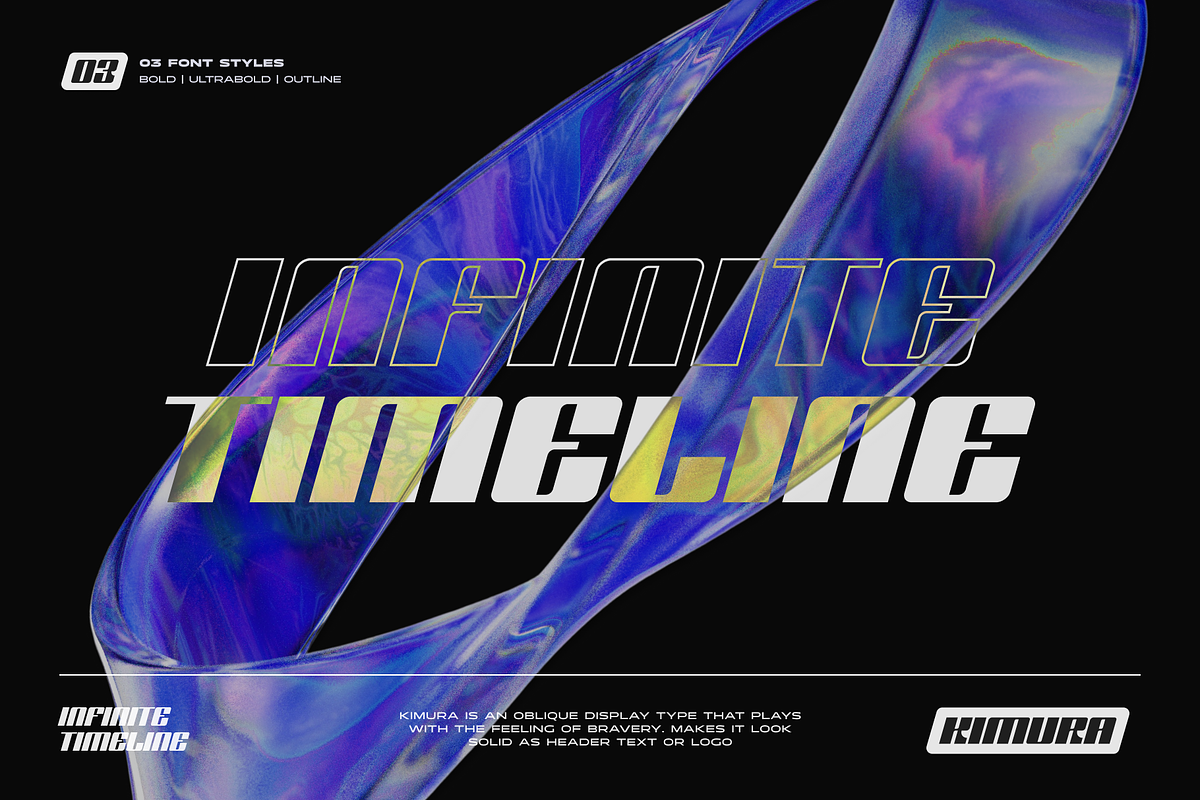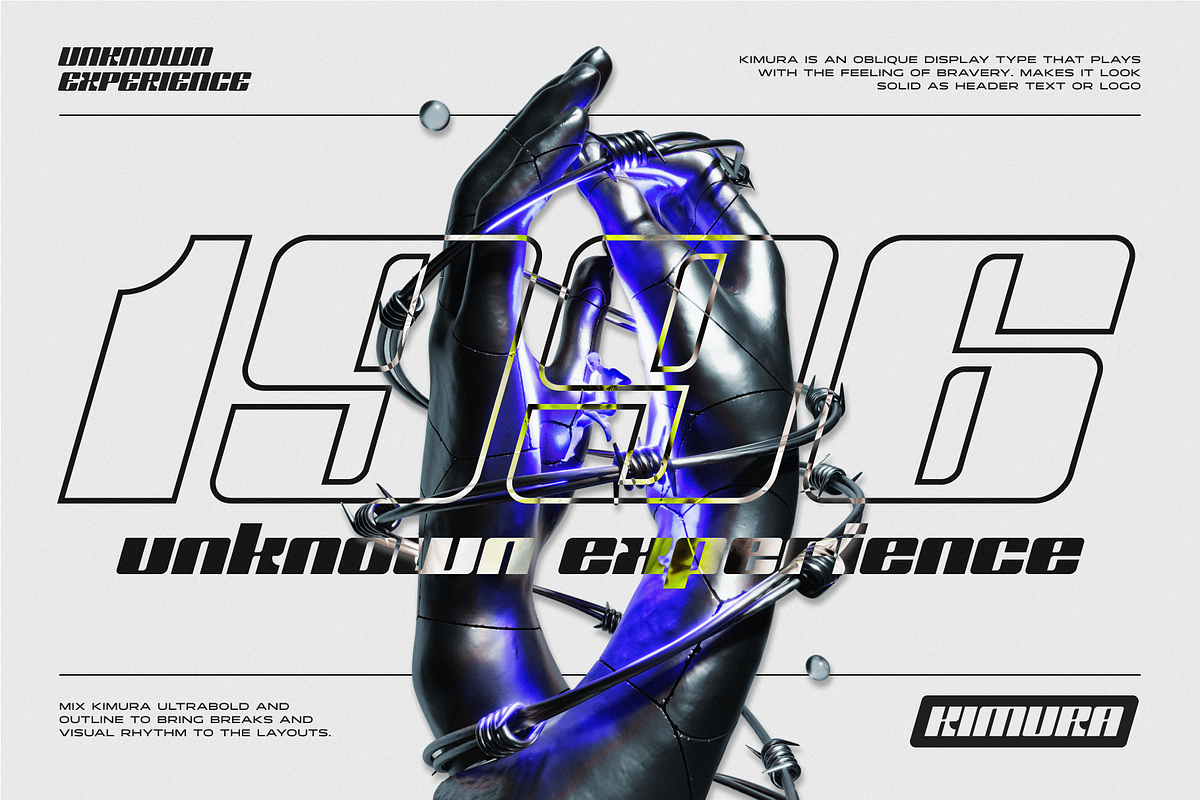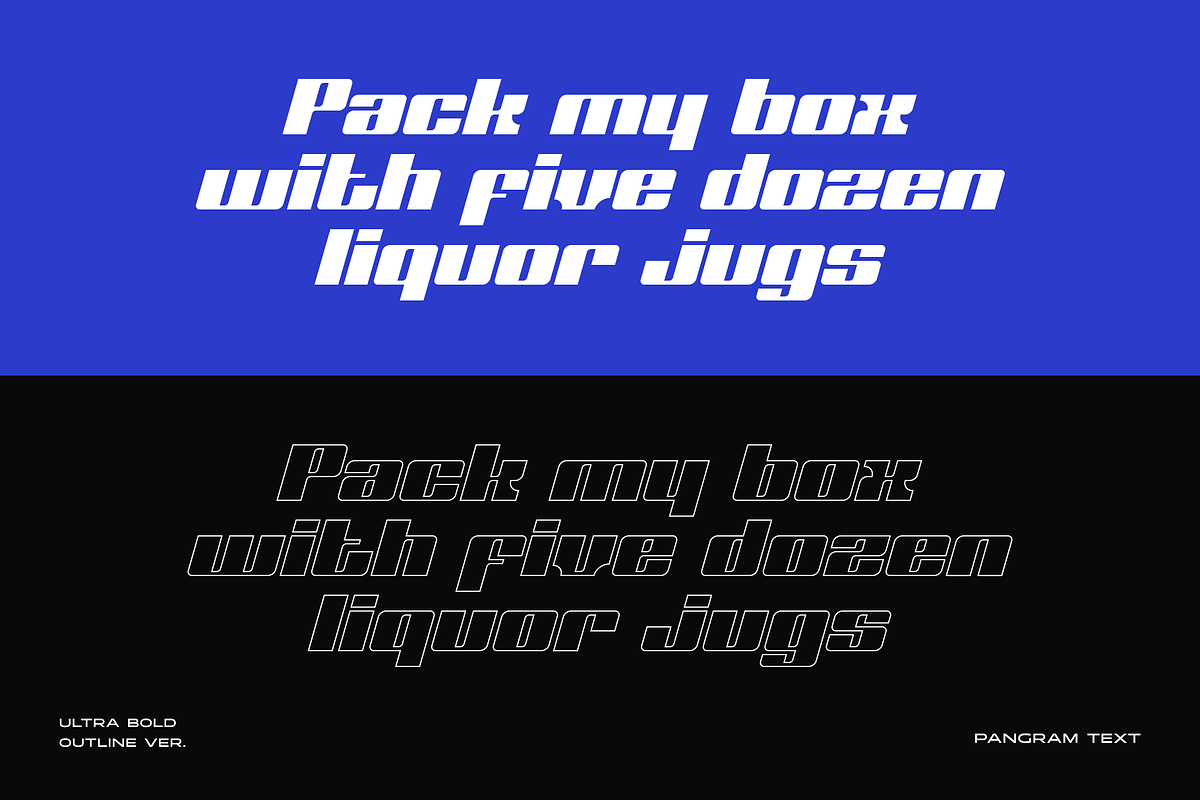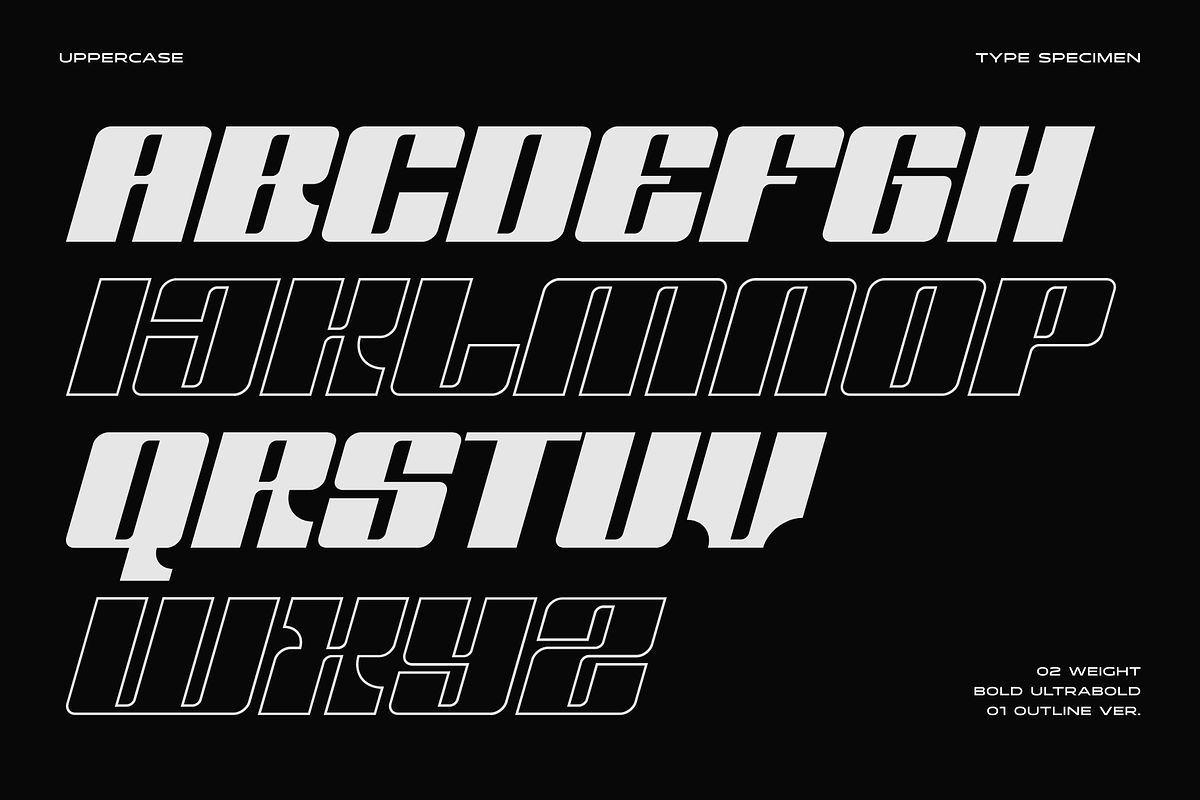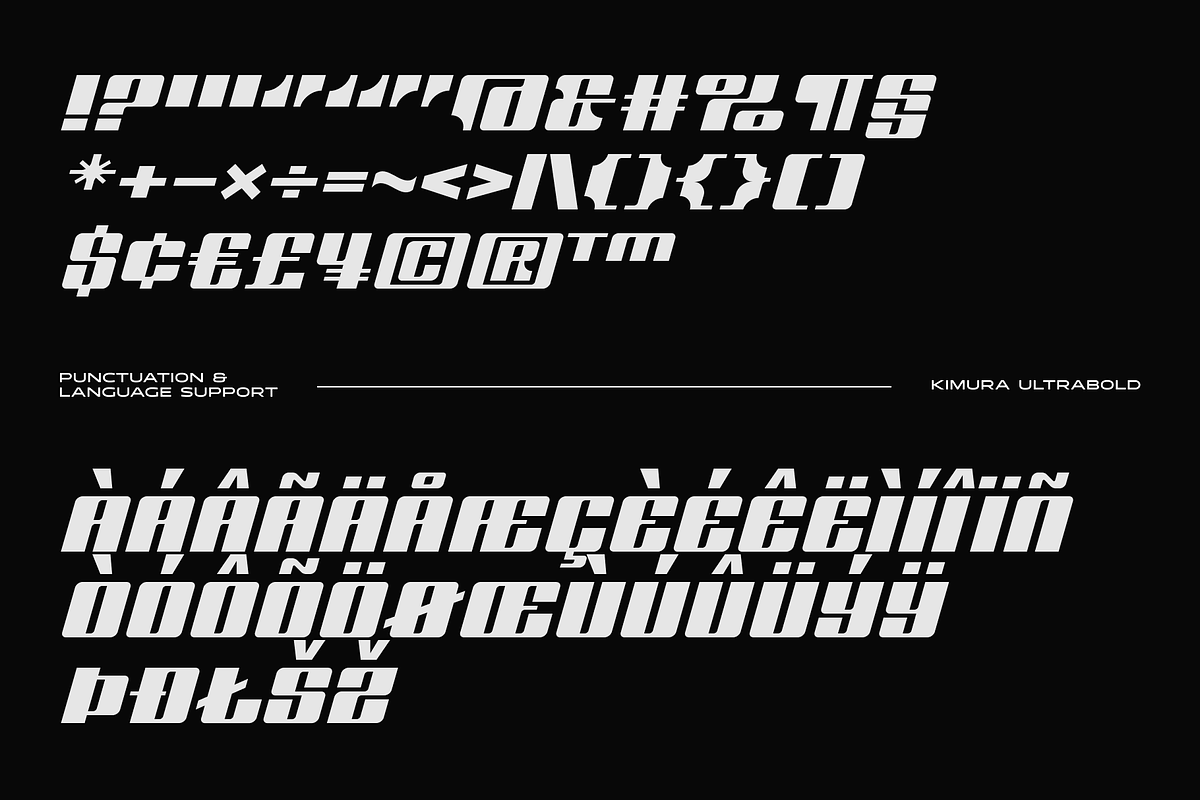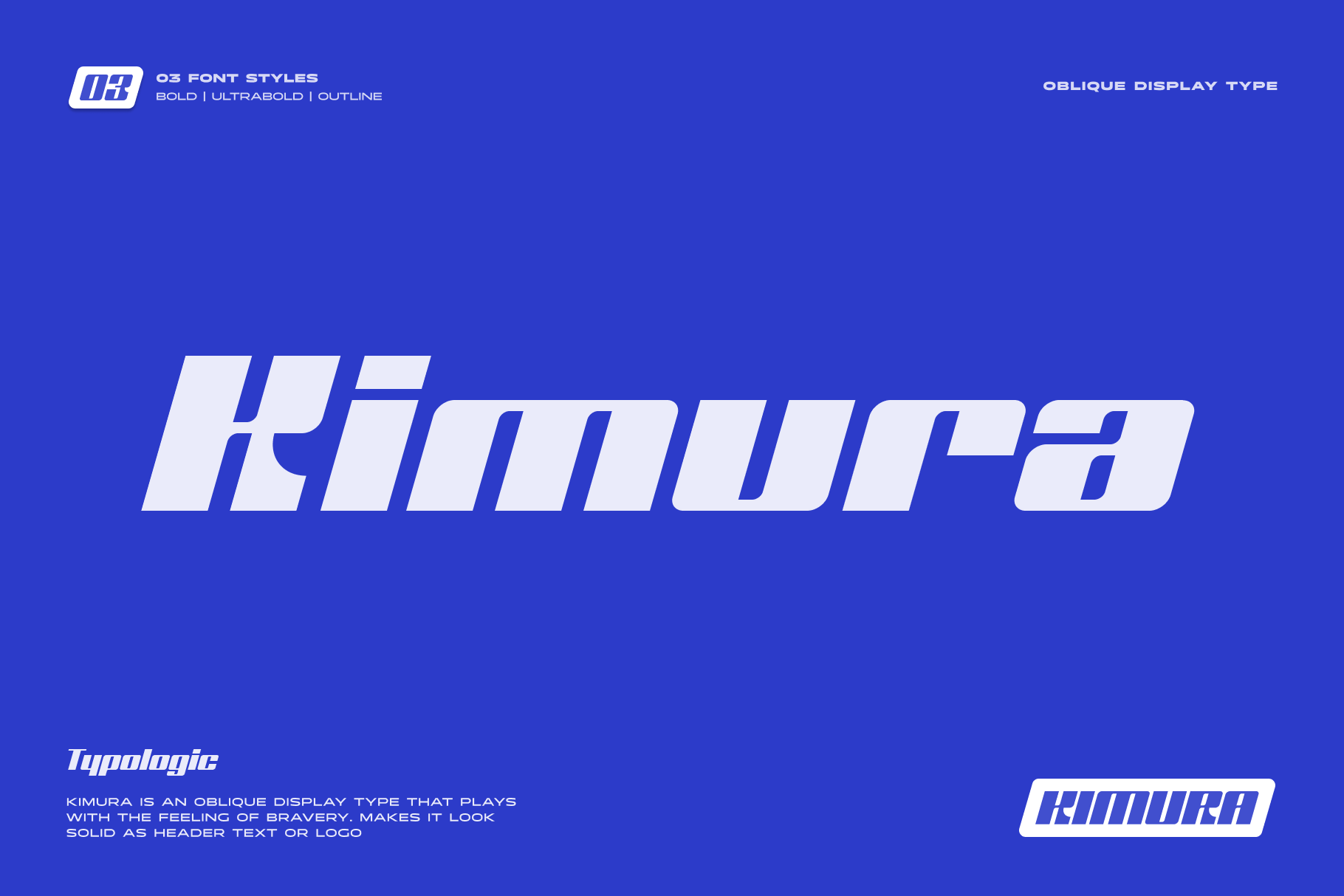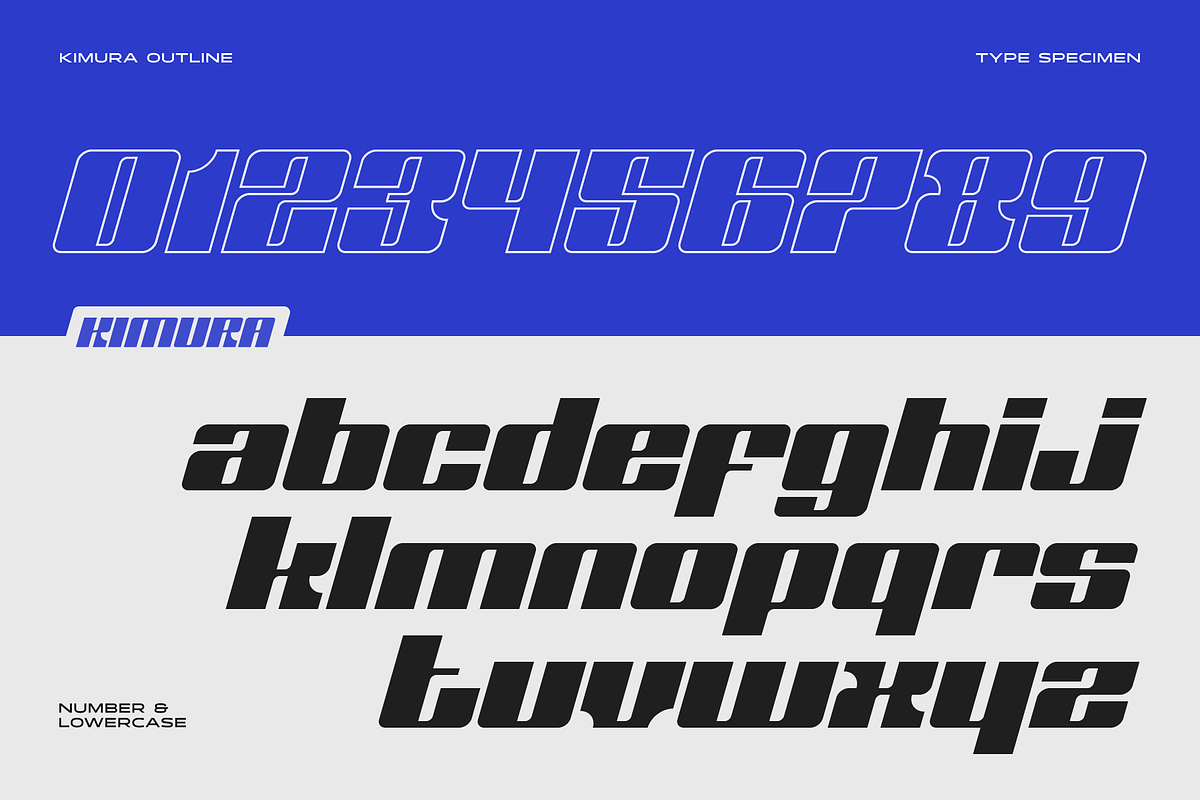
Kimura Display Font
Kimura is an oblique display type that plays with the feeling of bravery. With a shape that contrasts between vertical and horizontal lines makes it look solid as header text or logo. It is also very powerful for brand identities that require uniqueness and boldness. Kimura is available in two weights: bold, ultra bold and an outline version.
Font Weight : Bold, Ultrabold, Outline Version